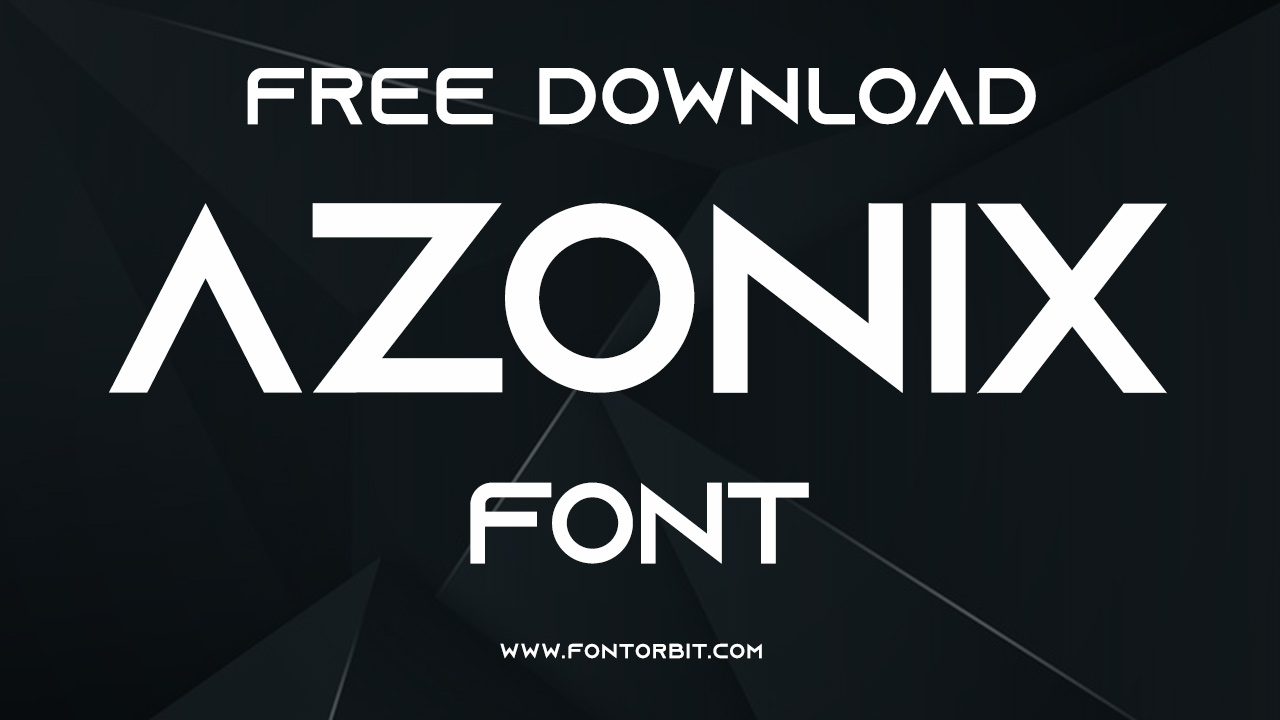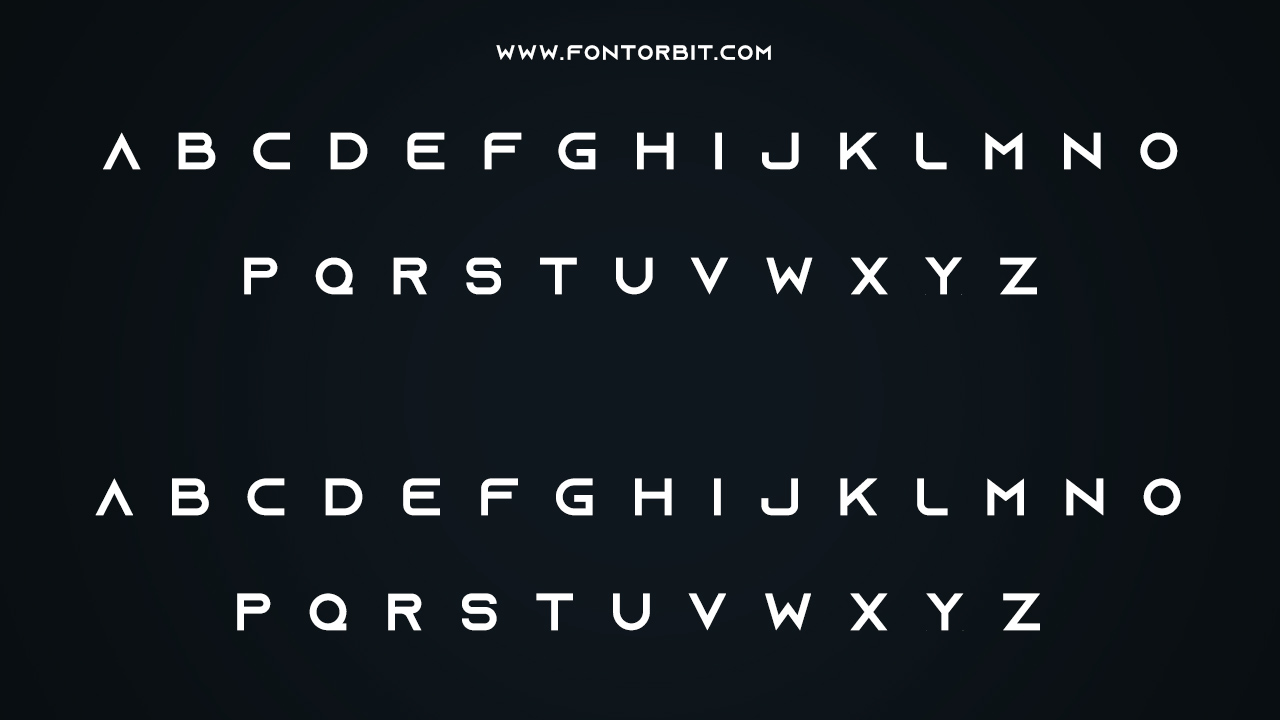
Azonix is a modern, geometric, and minimalist sans-serif font designed by Mixo! It was first published in 2018. Known for its bold and futuristic style, Azonix is part of the sans-serif font family. It is characterized by its clean lines and sharp angles, making it suitable for logos, headlines, and branding materials.
Azonix Font Family Includes
Azonix is available in a single style that represents the designer’s vision of simplicity and modernity. Though it doesn’t offer multiple weights or variations, its boldness makes it impactful in design.
Azonix Regular
Notable Uses Of Azonix Font:
Azonix has been widely used in various creative fields thanks to its futuristic appearance. It’s often seen in:
- Branding and logos, especially in tech and startups
- Event posters and promotional materials
- Website headings and UI/UX design
- Game interfaces and digital art
- Social media graphics and YouTube thumbnails
Where Should I Use This Font:
Azonix is best suited for projects that need a bold, eye-catching font with a futuristic vibe. It works well in:
- Technology-related logos and branding
- Minimalist websites and apps
- Posters and advertising for events, especially in creative industries
- Product packaging for innovative or luxury items
- Typography-based artwork
Last Words:
Azonix is an excellent font for those seeking a clean, geometric design that leaves a modern and professional impression. Its bold and straightforward design makes it highly versatile, though it works best in headers or logos rather than body text. If you’re looking for a minimalist, futuristic font, Azonix should be on your list.
FAQs:
1.What Type Of Font Is Azonix?
Azonix is a sans-serif font.
3.Can I Use Azonix For My Logo?
Absolutely! Azonix is ideal for logos due to its bold, clean design.
4.Does Azonix Have Multiple Font Weights?
No, it only comes in one bold weight.
6.Can I Pair Azonix With Other Fonts?
Yes, pairing it with a light sans-serif or serif font for body text works well.